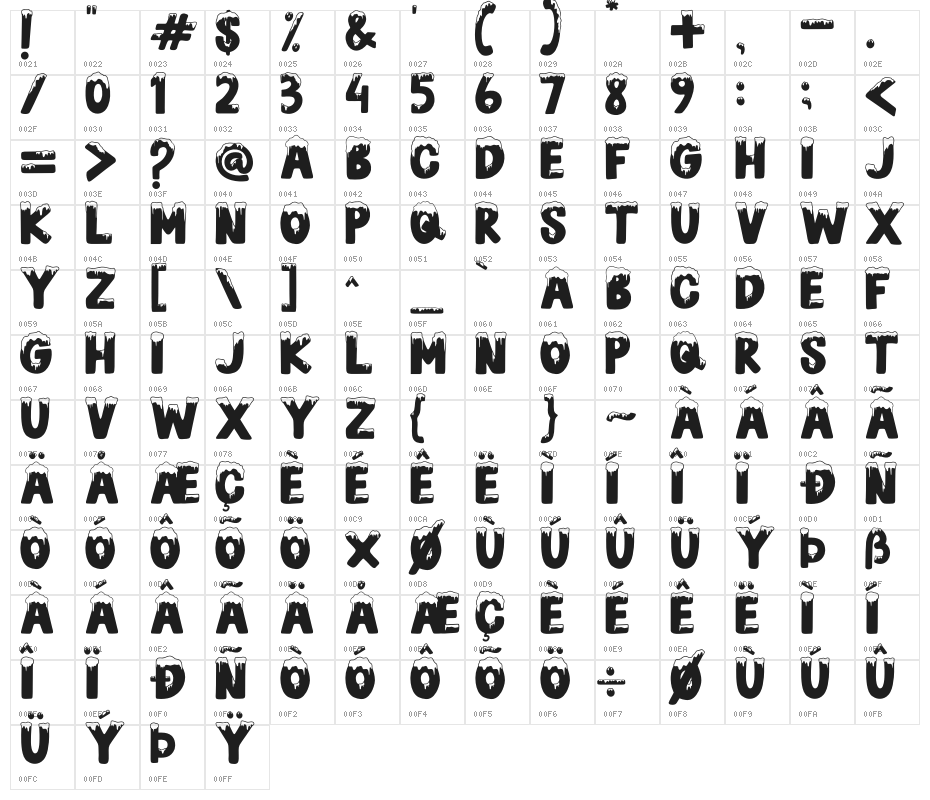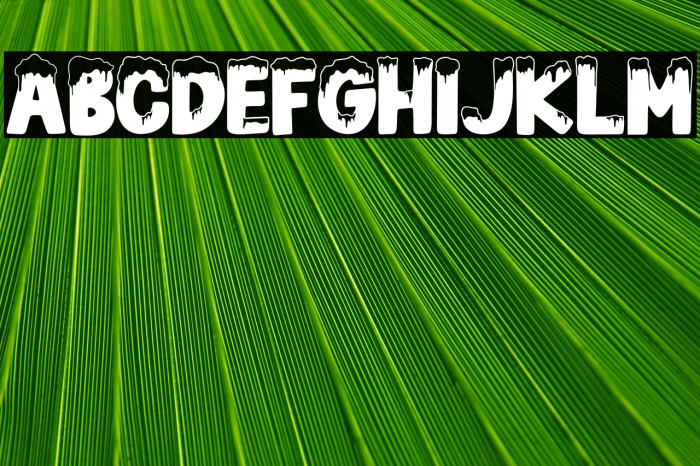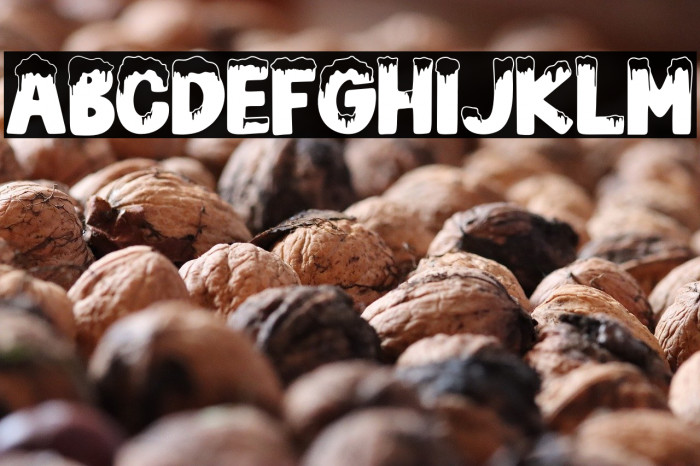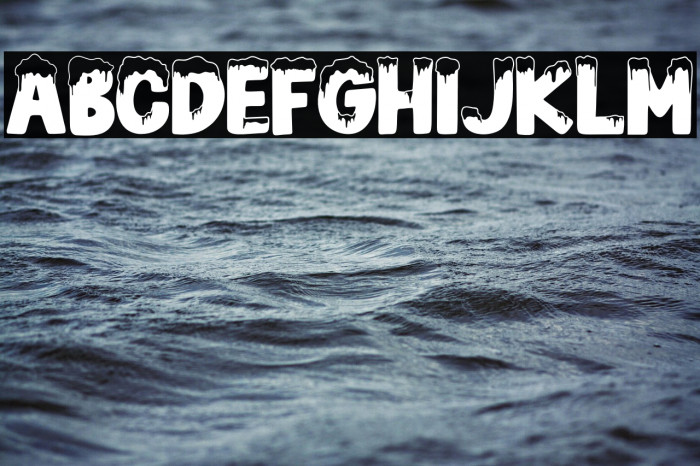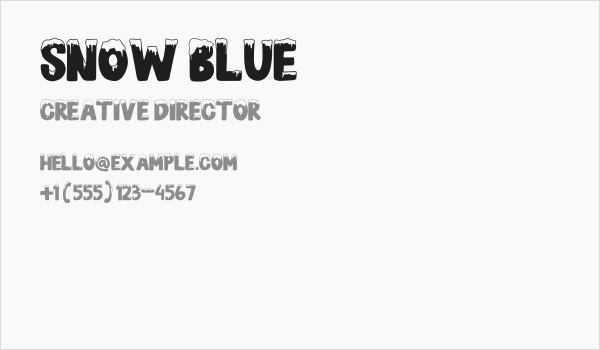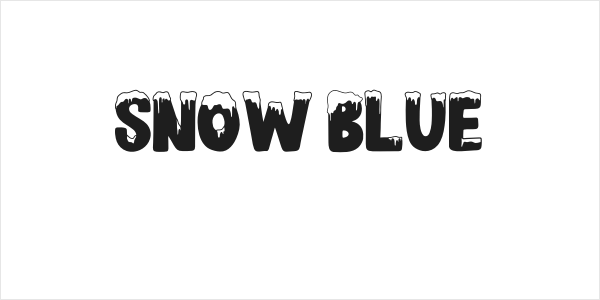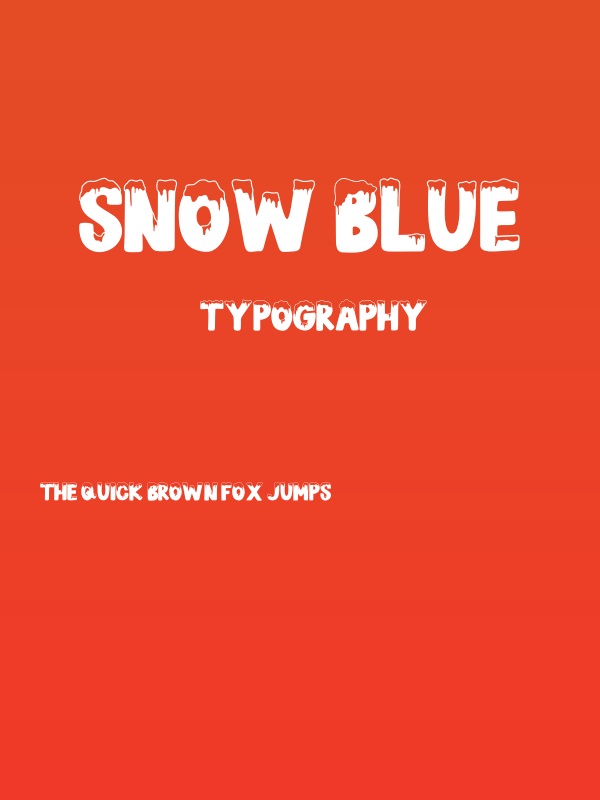
SNOW BLUE Font
SNOW BLUE Description
This playful and decorative font features bold, uppercase and lowercase letters with a unique snow-capped design. Each character is adorned with a stylized snow effect on the top, giving it a wintery and festive appearance. The font maintains a consistent thickness throughout, with rounded edges that add a friendly and approachable feel. The numbers and special characters are similarly styled, ensuring a cohesive look across all text elements. This font is perfect for holiday-themed projects or any design that requires a touch of whimsy and seasonal charm.
| Use Case | Headlines, Logos, Seasonal Designs |
| Proposed Projects | Ideal for holiday cards, winter event posters, festive banners, and seasonal branding. |